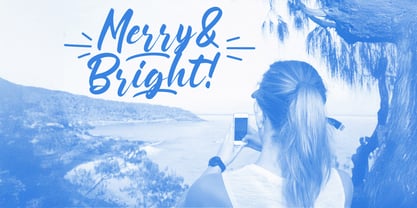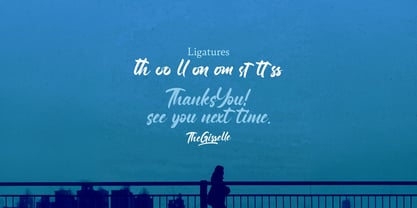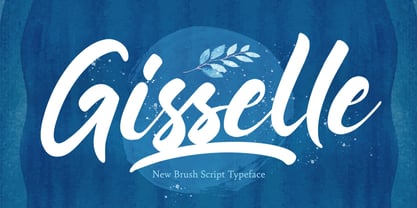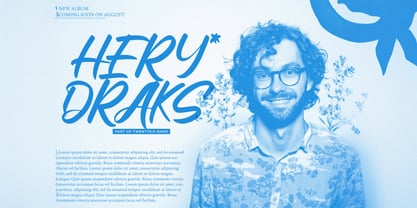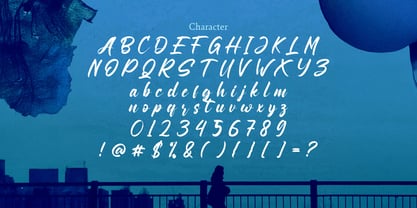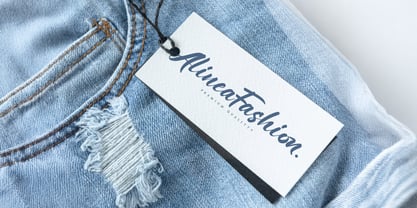
The Gisselle Font Family was designed by Virgiawan Listanto and published by Stringlabs Creative Studio. Gisselle contains 1 styles.
Gisselle is a bold script font that blends elegance with confidence. Featuring sweeping curves, thick strokes, and a touch of vintage flair, Gisselle brings a luxurious and feminine feel to any design while maintaining bold visual impact. Perfect for branding, fashion, invitations, and high-end packaging, Gisselle is made to stand out with grace and power.
Designers: Virgiawan Listanto
Publisher: Stringlabs Creative Studio
Foundry: Stringlabs Creative Studio
Design Owner: Stringlabs Creative Studio
Gisselle